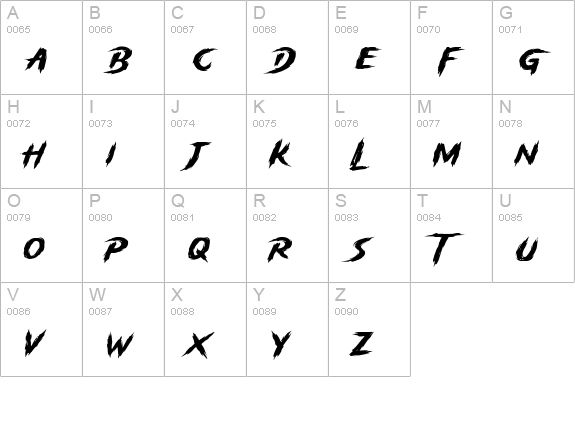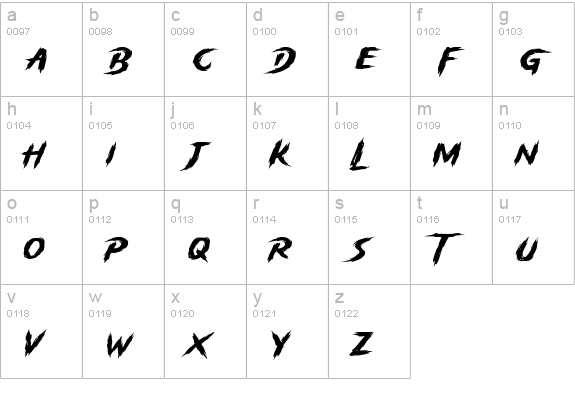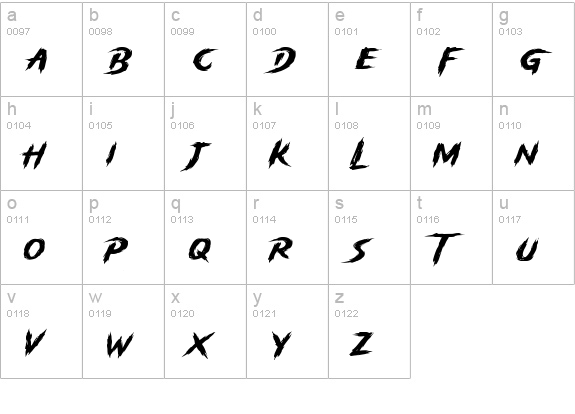
Storm Gust - Horror Font is a chilling and spine-tingling typeface that will send shivers down your spine. With its jagged edges and ominous curves, this font exudes an air of mystery and fear, making it perfect for horror-themed projects, Halloween designs, and anything that requires a touch of darkness.
This font is not only visually striking but also versatile, as it can be used for both headlines and body text to create a cohesive and impactful design. The sharp and aggressive letterforms of Storm Gust - Horror Font will make your text stand out and leave a lasting impression on your audience.